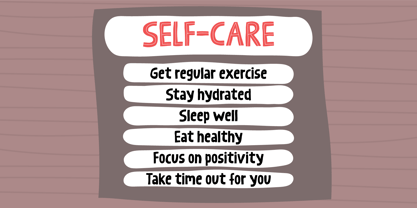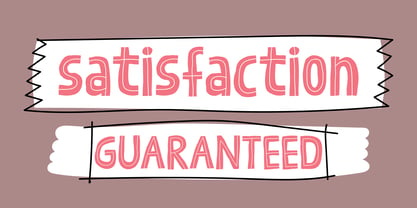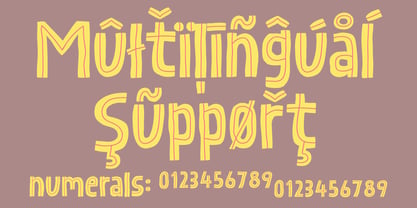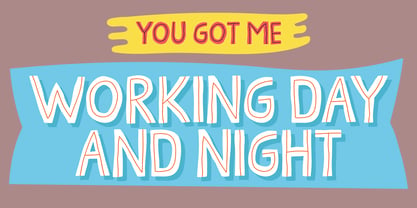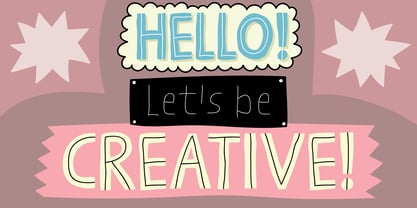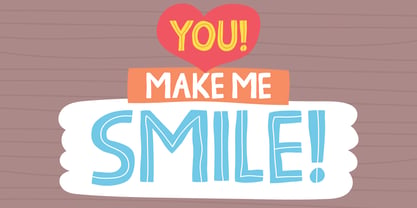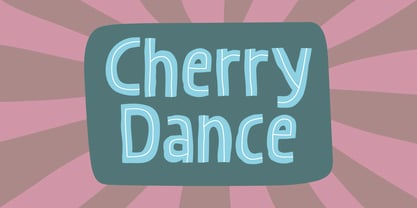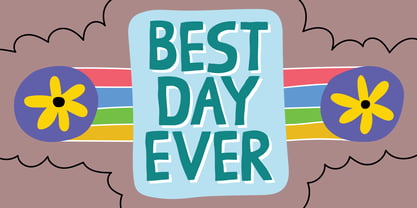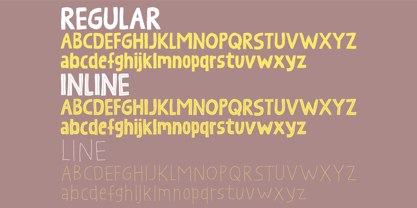
Cherry Dance
The Cherry Dance Font Family was designed by Jakob Fischer and published by PizzaDude.dk. Cherry Dance contains 3 styles and family package options. More about this family
Cherry Dance has a playful, hand-drawn style with a slightly uneven, whimsical look. Its thick strokes and soft curves give it a fun, casual feel—perfect for children’s books, crafts, or cheerful designs. Play around with the different versions and add a layered, cut-out effect that enhances its crafty, handmade vibe. It's a mix of a grafitti and comic style, and super legible even at small sizes!